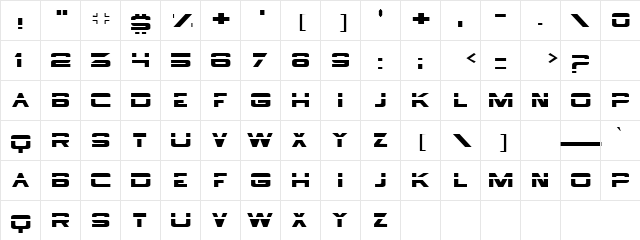
Bottle Sand Regular
Design Context for Bottle Sand Typeface
Bottle Sand offers clean, dependable letterforms without strong stylistic allegiance, making it a practical choice for designers who need flexibility.